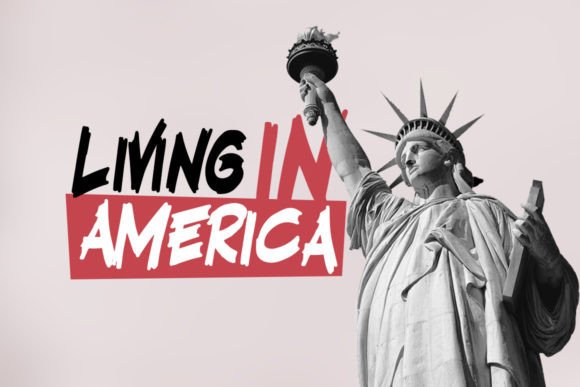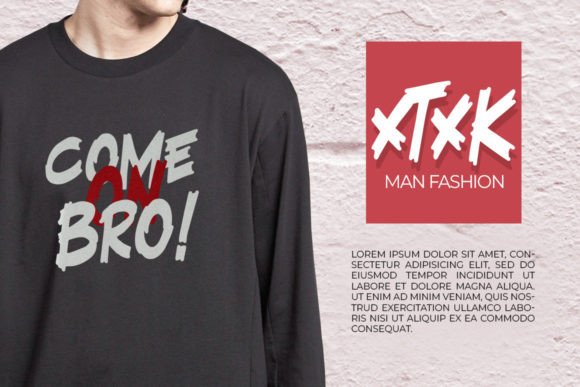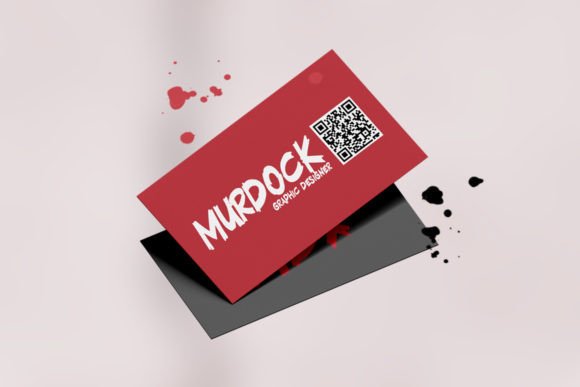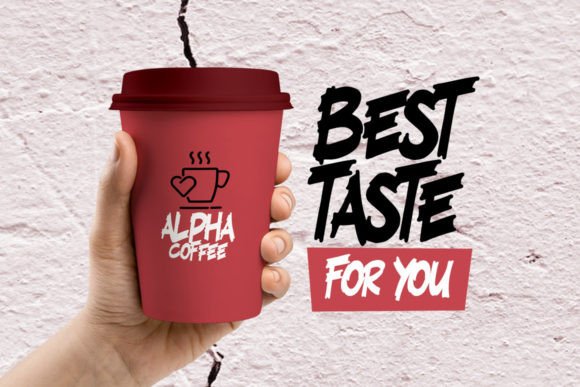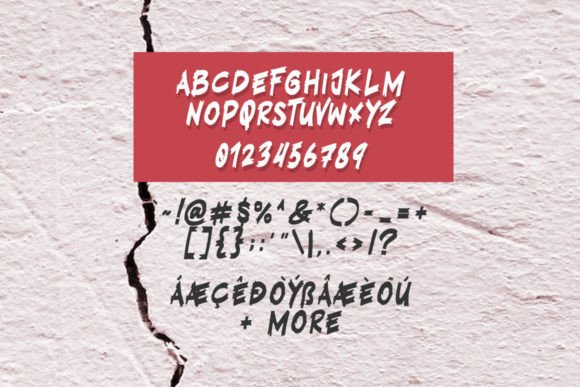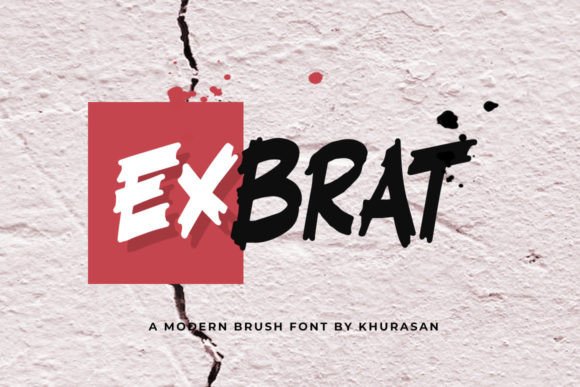
Introducing Exbrat Font: The Ultimate Modern Brush Font for Creative Designs
Are you a designer, crafty person, or simply someone who loves to create stunning visual content? Look no further! Exbrat Font is here to revolutionize your design game with its quirky, modern, and brush-style charm. In this article, we’ll dive into the world of Exbrat Font, exploring its features, uses, and benefits, as well as provide you with valuable insights on how to make the most of this incredible font.
What is Exbrat Font?
Exbrat Font is a modern brush font designed to add a touch of personality to your designs. With its unique, hand-painted style, this font is perfect for creating eye-catching posters, logos, magazines, book covers, banners, and so much more. Exbrat’s quirky and artistic vibe makes it an excellent choice for designers looking to add a dash of creativity to their work.
Key Features of Exbrat Font
- Modern Brush Style: Exbrat Font boasts a fresh, modern brush style that’s perfect for creating trendy designs.
- Quirky and Artistic: This font’s unique, hand-painted style adds a touch of personality to any design.
- Highly Versatile: Exbrat Font can be used for a wide range of design projects, from posters and logos to magazines and book covers.
- Easily Customizable: With Exbrat Font, you can experiment with different colors, sizes, and styles to create a look that’s all your own.
Uses of Exbrat Font
Exbrat Font is an incredibly versatile font that can be used for a variety of design projects, including:
- Posters and Flyers: Create eye-catching posters and flyers for events, promotions, or announcements.
- Logos and Branding: Use Exbrat Font to create unique and memorable logos for your business or brand.
- Magazines and Newspapers: Add a touch of personality to your magazine or newspaper with Exbrat Font’s quirky style.
- Book Covers and Publishing: Create stunning book covers and add a professional touch to your publishing projects.
- Banners and Signage: Use Exbrat Font to create eye-catching banners and signage for events, sales, or promotions.
Benefits of Using Exbrat Font
So, why choose Exbrat Font for your design projects? Here are just a few benefits:
- Stand Out from the Crowd: With Exbrat Font, you can create unique and eye-catching designs that set you apart from the competition.
- Easy to Use: This font is incredibly easy to use, even for those with limited design experience.
- Customizable: Exbrat Font can be easily customized to fit your brand’s style and aesthetic.
- Time-Saving: With Exbrat Font, you can create stunning designs in no time, saving you time and effort.
Tips and Tricks for Using Exbrat Font
To get the most out of Exbrat Font, here are a few tips and tricks:
- Experiment with Colors: Try out different colors and combinations to find the perfect look for your design.
- Play with Sizes: Experiment with different font sizes to create visual interest and hierarchy.
- Add Texture and Patterns: Add texture and patterns to your design to give it an extra layer of depth.
- Mix and Match Fonts: Combine Exbrat Font with other fonts to create a unique and visually appealing design.